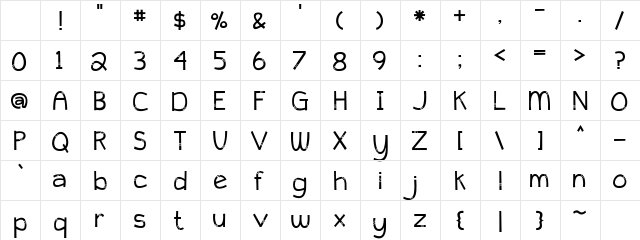
Peyton Jennifer is a composed and adaptable typeface that performs quietly and consistently across a wide range of design contexts.
Pro Tip: Use Peyton Jennifer in both headline and body roles to test its range before committing to a single application.